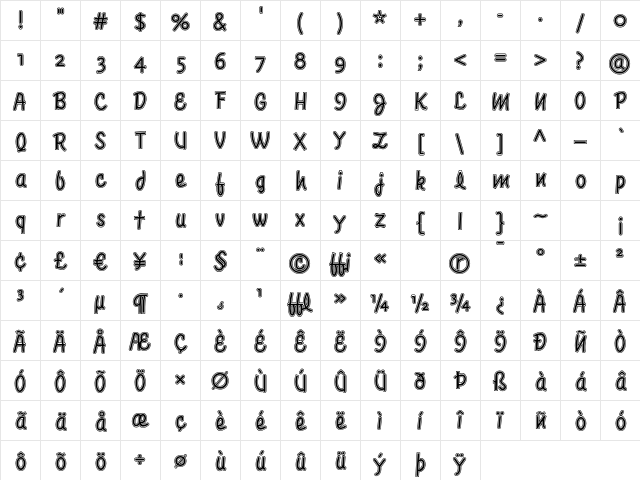
ElliottsVenusDioxideOutlined Regular Free Font
ElliottsVenusDioxideOutlined Regular
Design Context for ElliottsVenusDioxideOutlined
ElliottsVenusDioxideOutlined is built around its visual character rather than neutral utility - its distinctive forms are designed to make an impression at display sizes.
Font Pairing: Pair with a clean neutral sans-serif for body copy to let ElliottsVenusDioxideOutlined's character lead without overwhelming the composition.
Pro Tip: Use ElliottsVenusDioxideOutlined exclusively at display sizes - it was designed to be seen, not read at length. Let a neutral companion handle body copy.